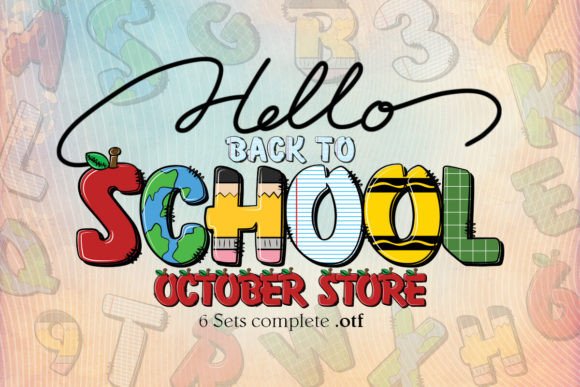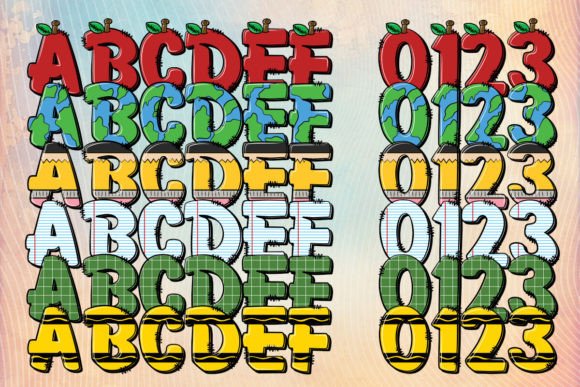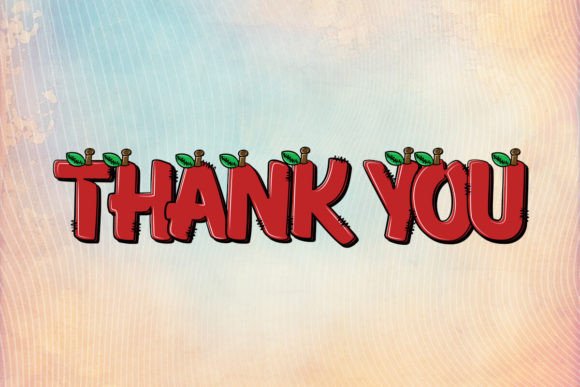
Back to School Font
Introducing ‘Back to School’ font – an enchanting blend of charm and creativity, crafted specially for educators, learners, and every academic heart. Its delightful appeal encapsulates the magic of the first day of school, turning letters into endearing doodles of love and learning. This charming set comes in six distinct styles, each inspired by the spirit of academia – paper, pencil, and even a nod to Earth Day. Skilfully designed, the ‘Back to School’ font truly captures the essence of scholastic adventure. Whether you’re a teacher, a student, or simply a lover of unique typography, this font is bound to add a playful touch to your creations.